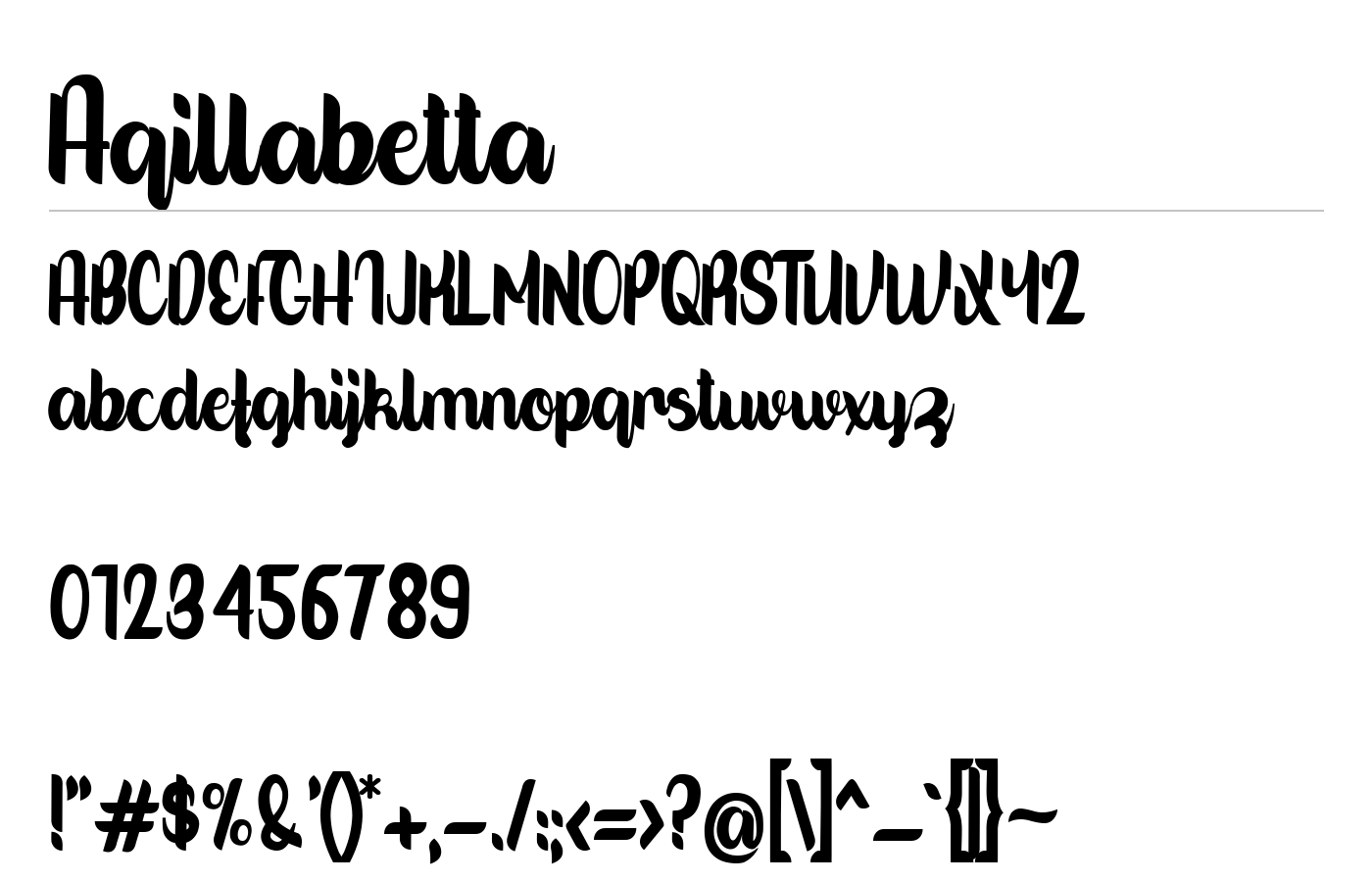
Aqillabetta is a bold, condensed script font with playful, rounded letterforms that combine a casual handwritten feel with clear legibility. Its slightly quirky curves and smooth strokes make it ideal for lively branding, eye-catching headlines, and creative projects that want to convey friendliness and approachability without losing style. This font works well where personality and readability are both important.
Aqillabetta Font
About Aqillabetta Font
| Font family | Aqillabetta Font |
| Designer | Arie Iskandar |